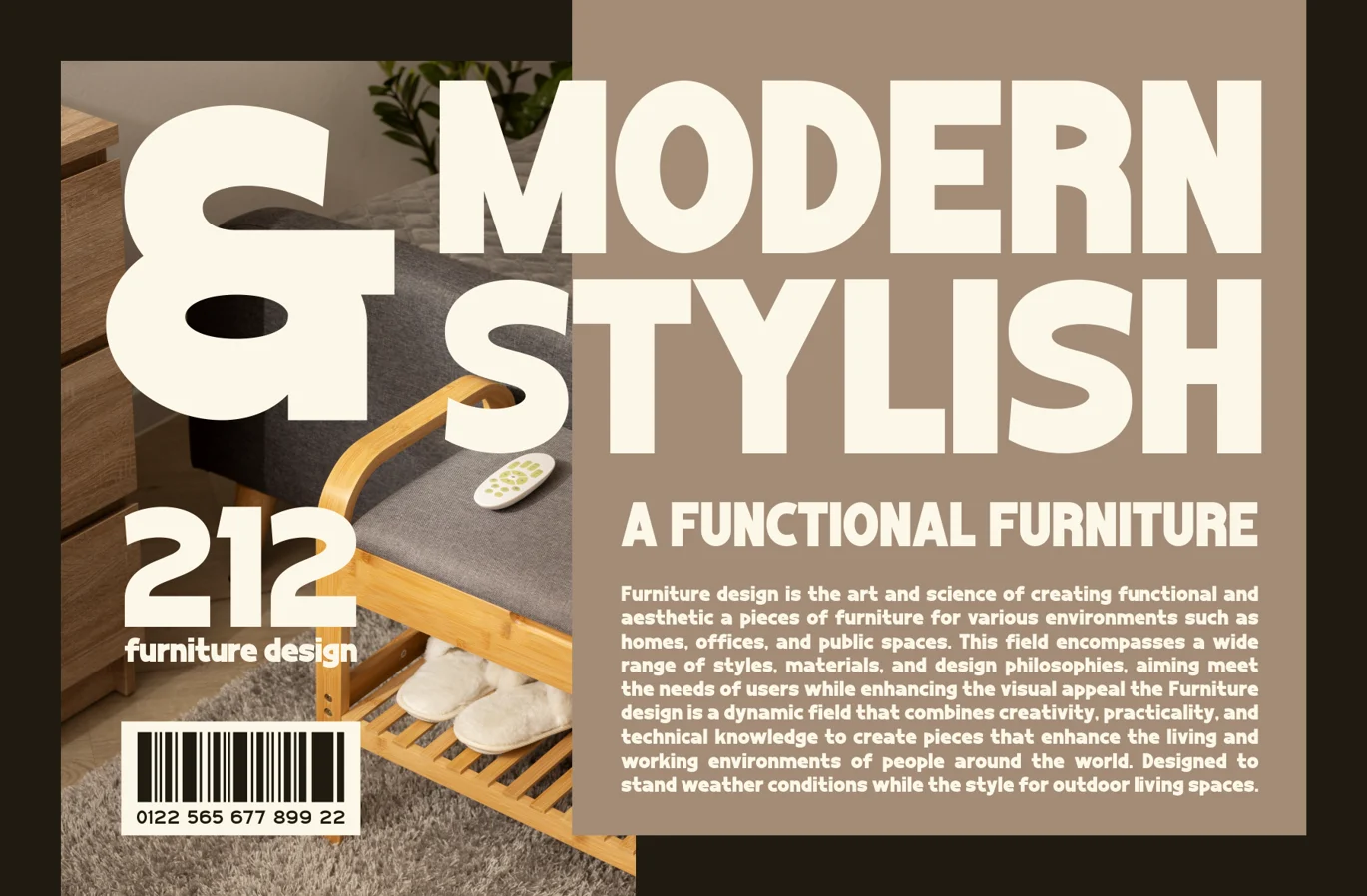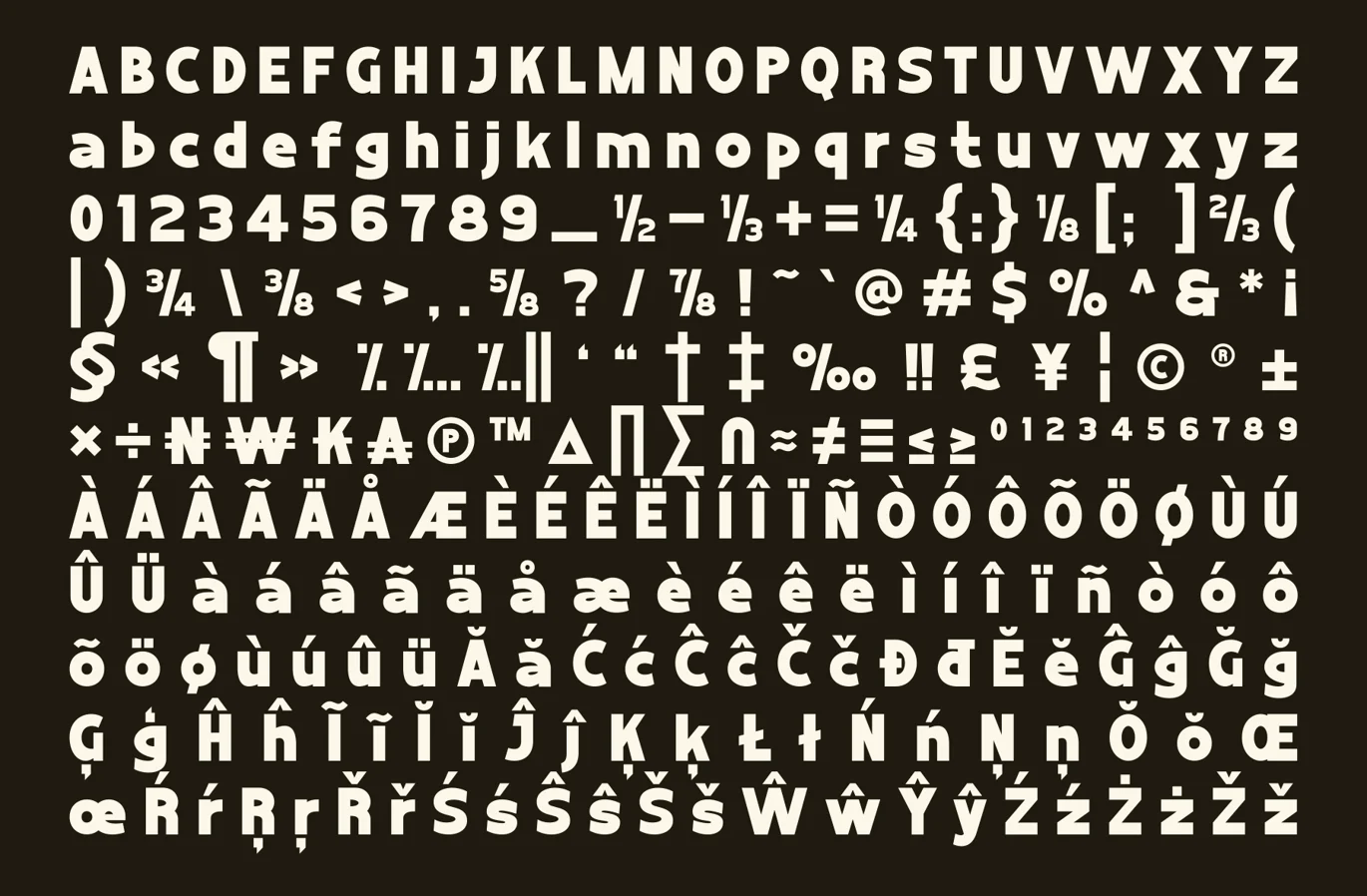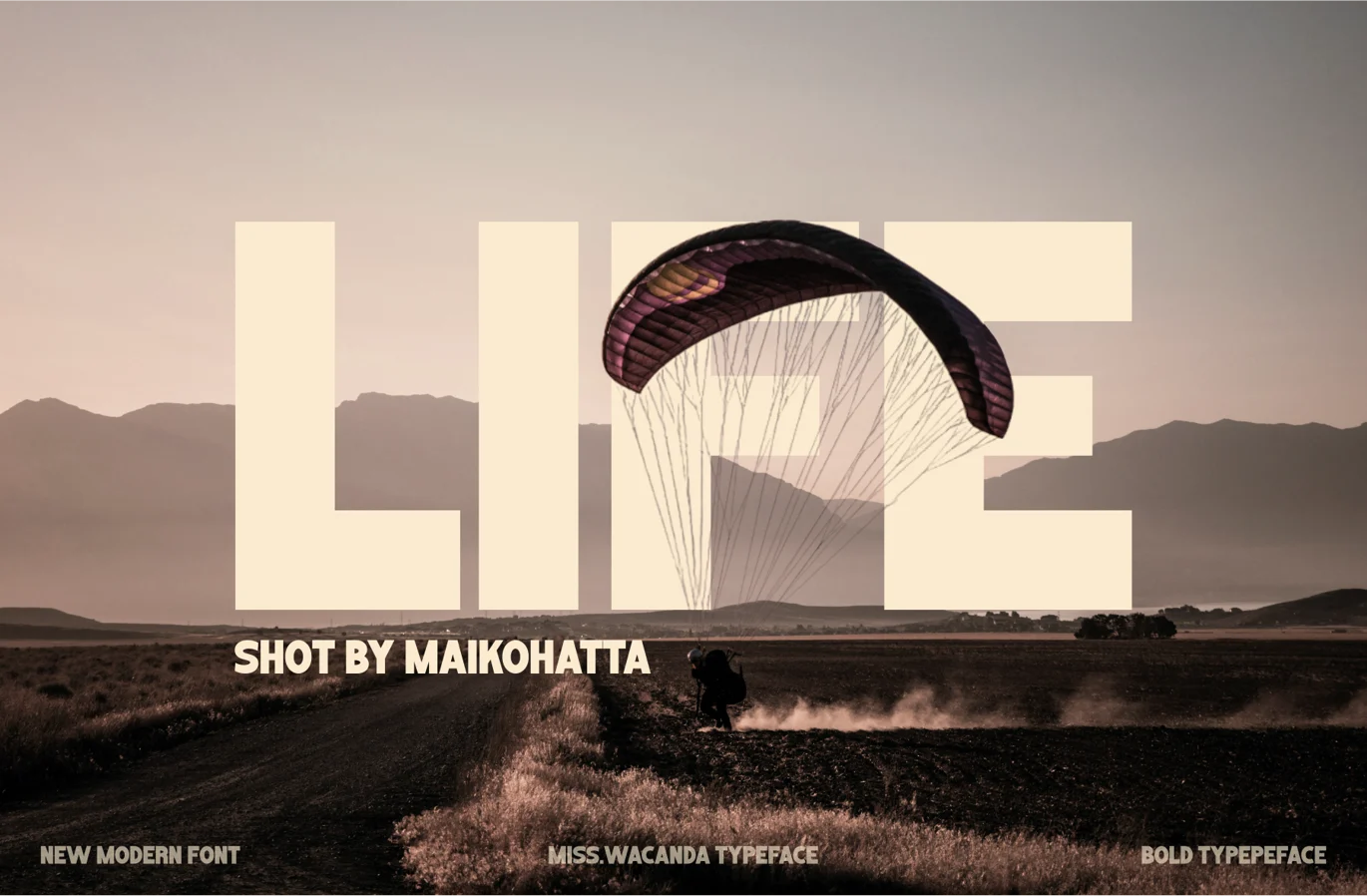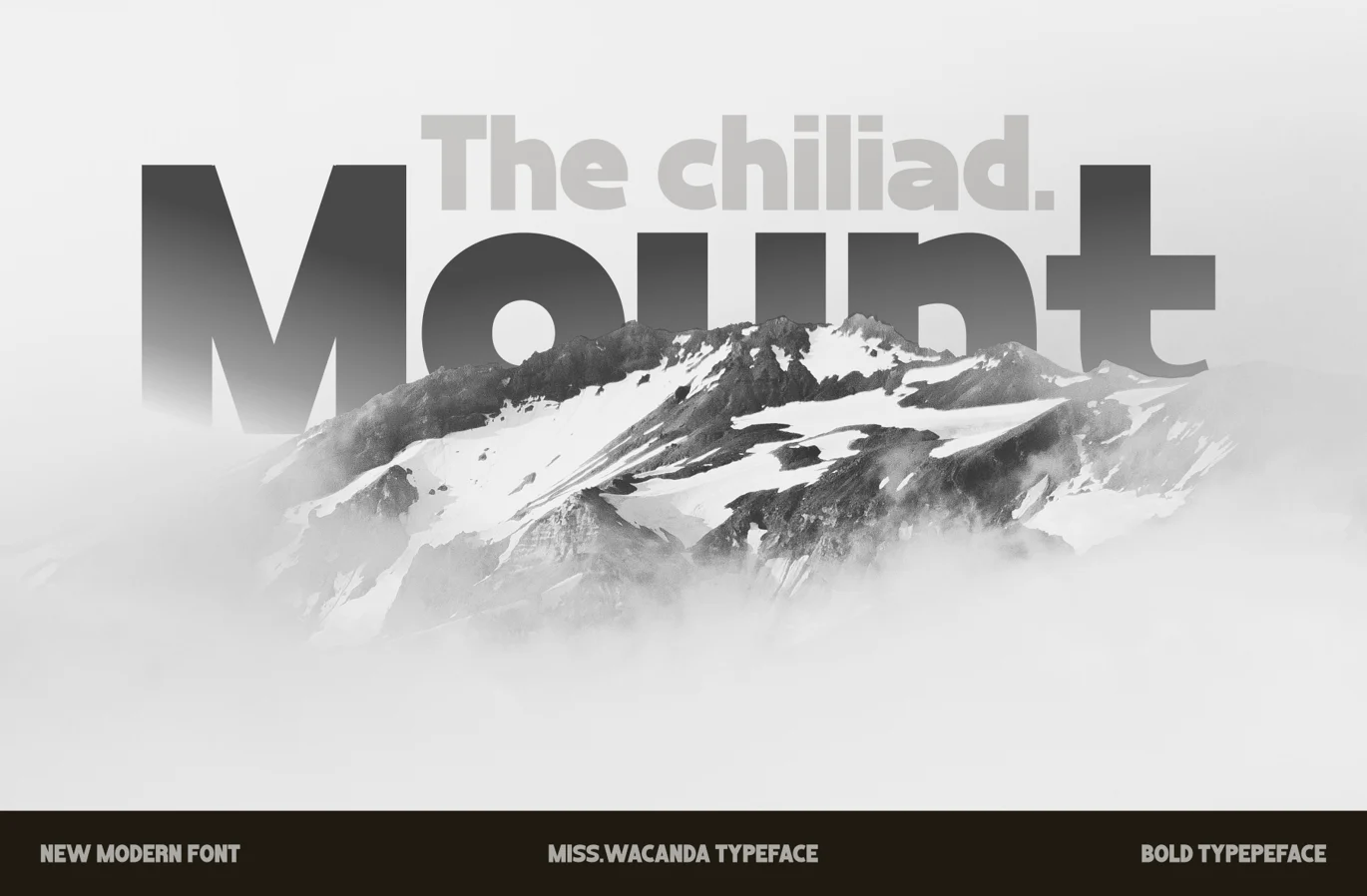
Miss Wacanda – Sans Serif Font Display
Introducing our new product Miss Wacanda - Sans Serif Font Display
This Font is a very flexible choice and can be used in a variety of design contexts. Its ability to provide a clean, professional, contemporary look and its simplicity and visual appeal make this font good for use in the world of graphic design and modern typography.